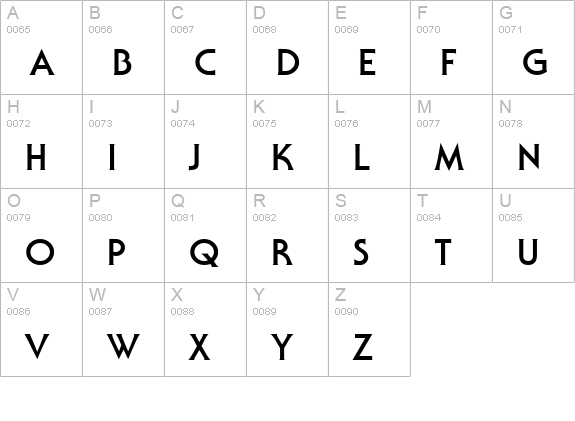
Staid Gothic Bold is a strong, high-contrast variant in the Staid typeface family \xE2\x80\x94 well suited to headlines, attention-grabbing titles, and strong calls-to-action.
Staid Gothic Bold is a striking and commanding font that exudes strength and sophistication. With its bold and robust letterforms, this typeface is perfect for making a bold statement in any design project. The sturdy and structured nature of Staid Gothic Bold lends itself to a variety of applications. Whether used in headlines, logos, posters, or packaging, this font will captivate and engage viewers with its powerful presence. What sets Staid Gothic Bold apart is not only its impeccable design but also its availability as a free font. You read that right – this remarkable typeface can be downloaded for free at FontsMarket.com. This means that designers, creatives, and typographic enthusiasts can access and enjoy the elegance and versatility of Staid Gothic Bold without breaking the bank. With its generous x-height and carefully crafted letterforms, Staid Gothic Bold ensures excellent legibility even in smaller sizes. Its clean lines and balanced proportions make it a reliable choice for both print and digital projects. The versatility of Staid Gothic Bold allows it to shine in various design themes, from modern and minimalist to vintage and retro. Its timeless appeal and bold character make it an excellent choice for conveying a sense of strength and professionalism. So why wait? Unleash the power of Staid Gothic Bold in your next design project. Download it for free now at FontsMarket.com, and let it elevate your designs with its bold and captivating presence.